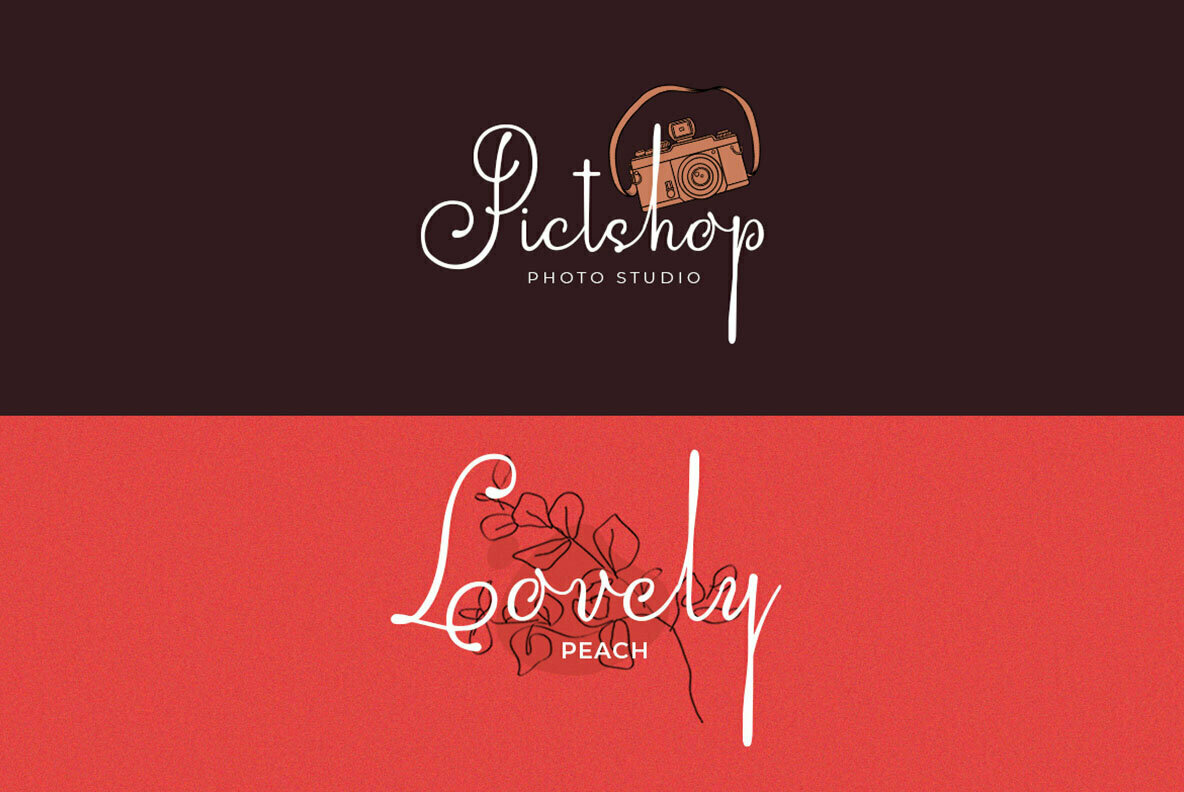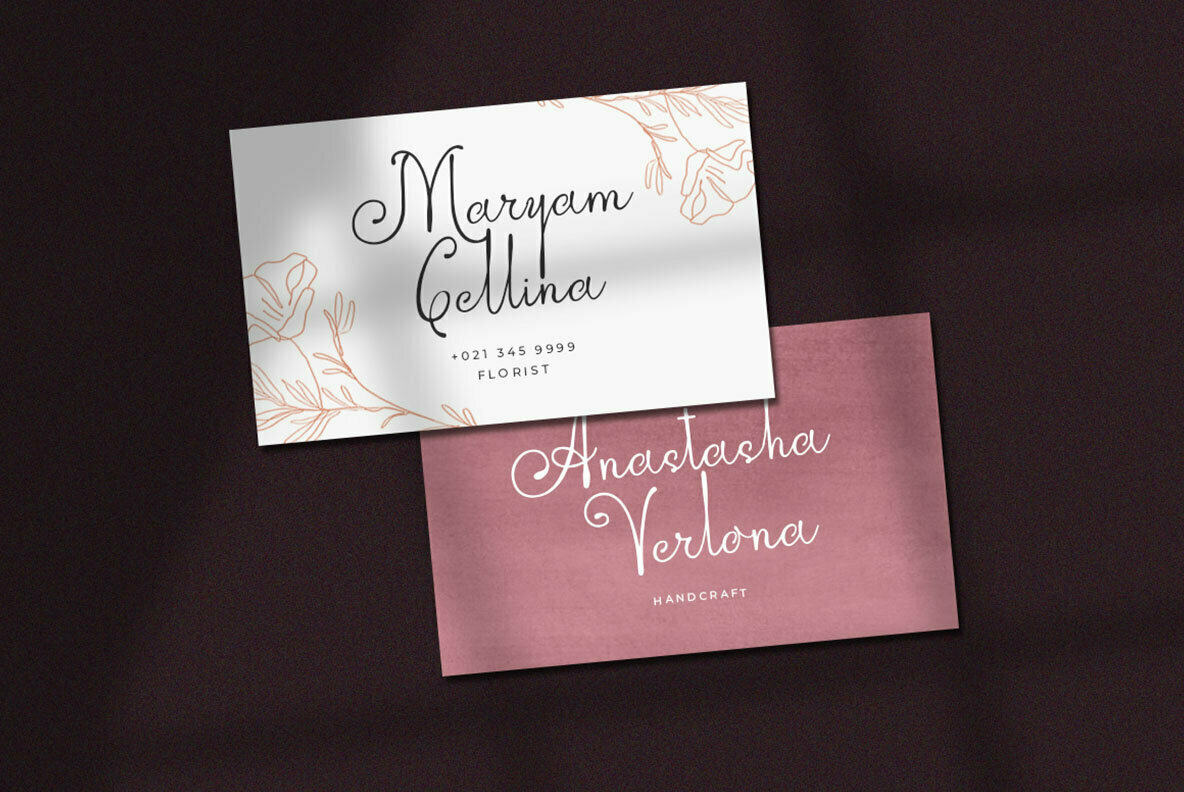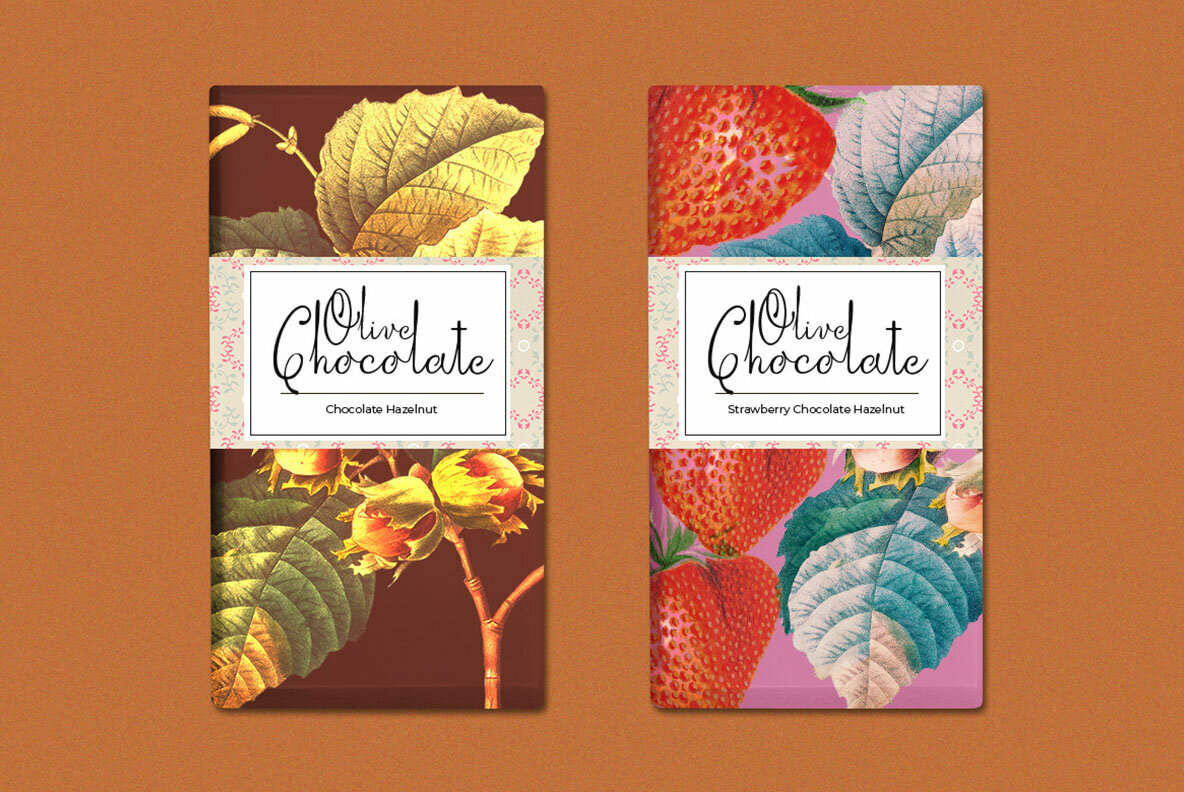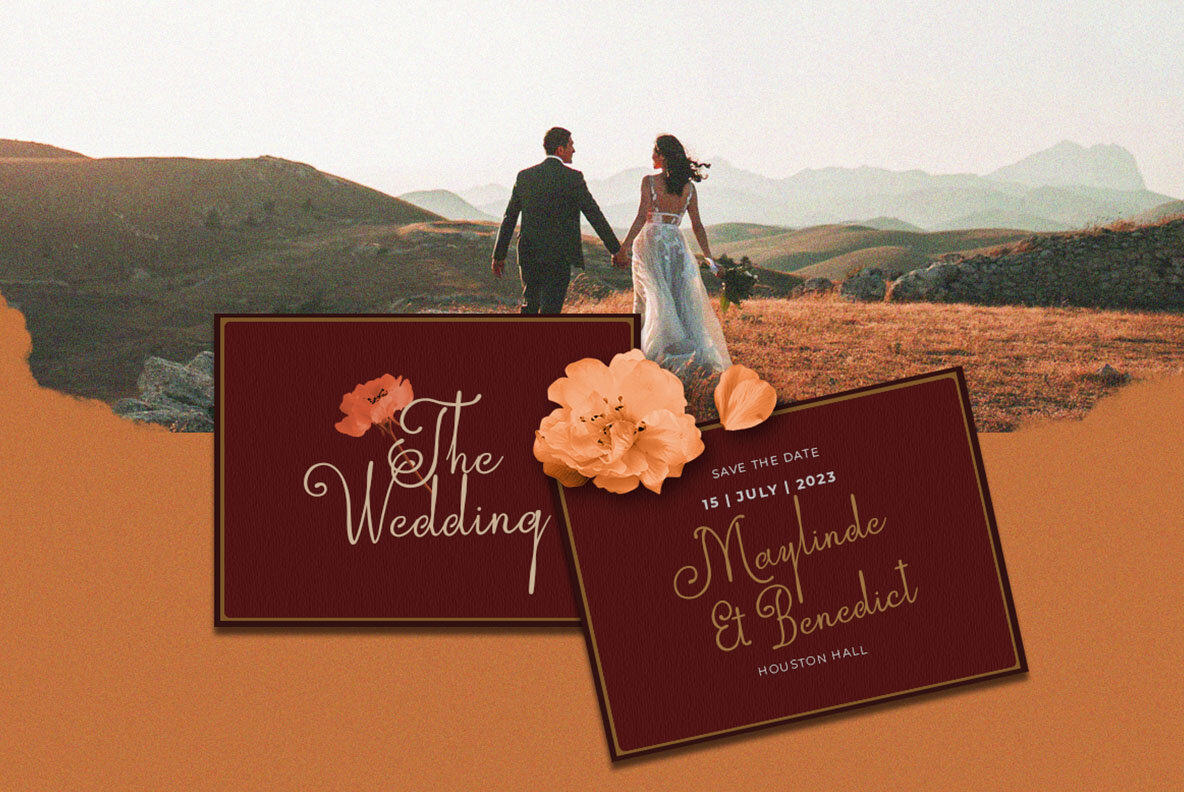
Edellyn Script Font
Edellyn Regular
The Edellyn Script, conceived by Letterhend Studio, is a contemporary script typeface tailor-made for personal branding needs. Its chic and modern aesthetic lends itself seamlessly to an array of uses, such as headlines, logotypes, apparel, invitations, branding, packaging, and even wedding cards or advertisements. Its delicate strokes and fluid lines bring a touch of elegance and sophistication to any project. To fully enjoy its potential, we recommend using design software that supports OpenType features and Glyphs panels, such as Adobe applications or Corel Draw, for accessing all available glyph variations. These tools will allow you to explore the script's full range of stylistic alternatives and unlock unparalleled creative expression.Edellyn Script: Chic Modern Typeface for Versatile Design